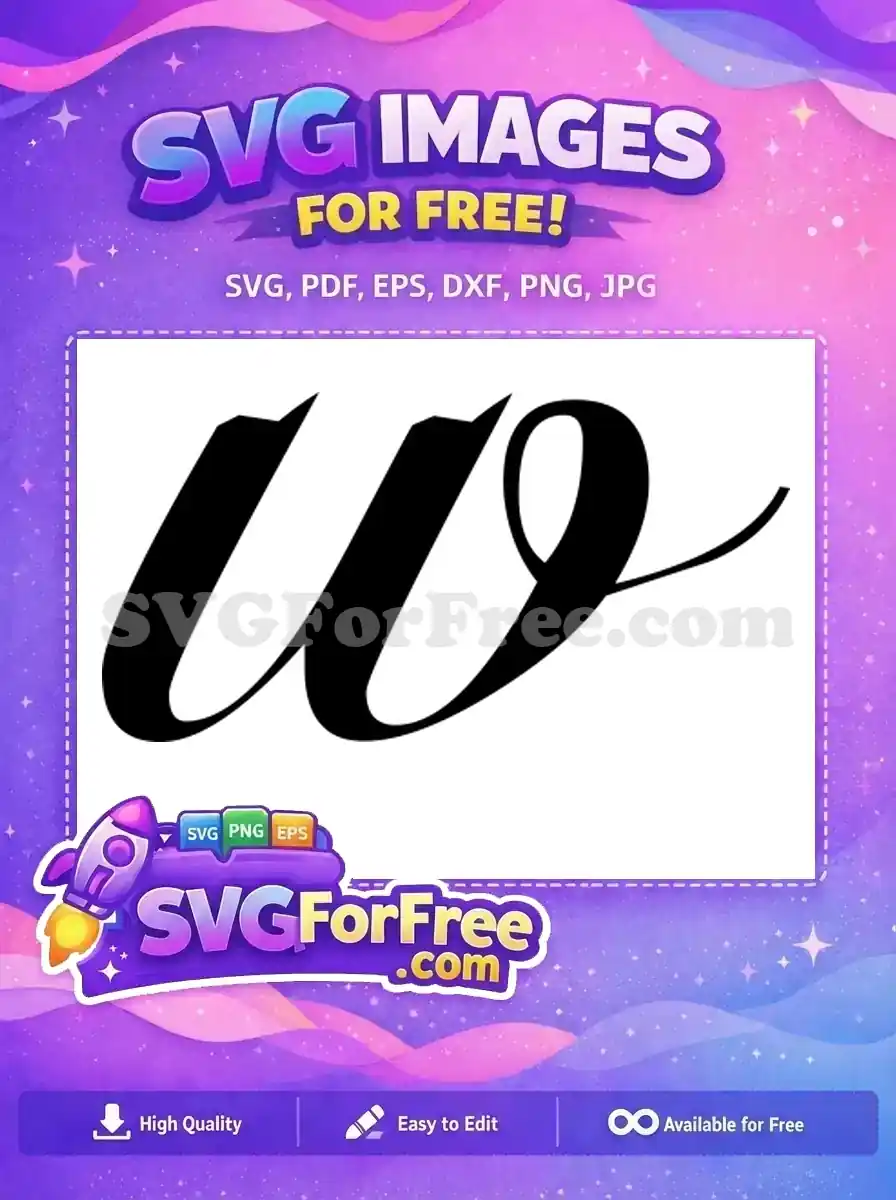
Free Lettering Swirl Font Free Calligraphy Initial Free SVG – Instant Download
An elegant, flowing lowercase ‘w’ in a script font with graceful loops, a lovely free-to-use clipart.
Free Lettering Swirl Font Free Calligraphy Initial Free SVG